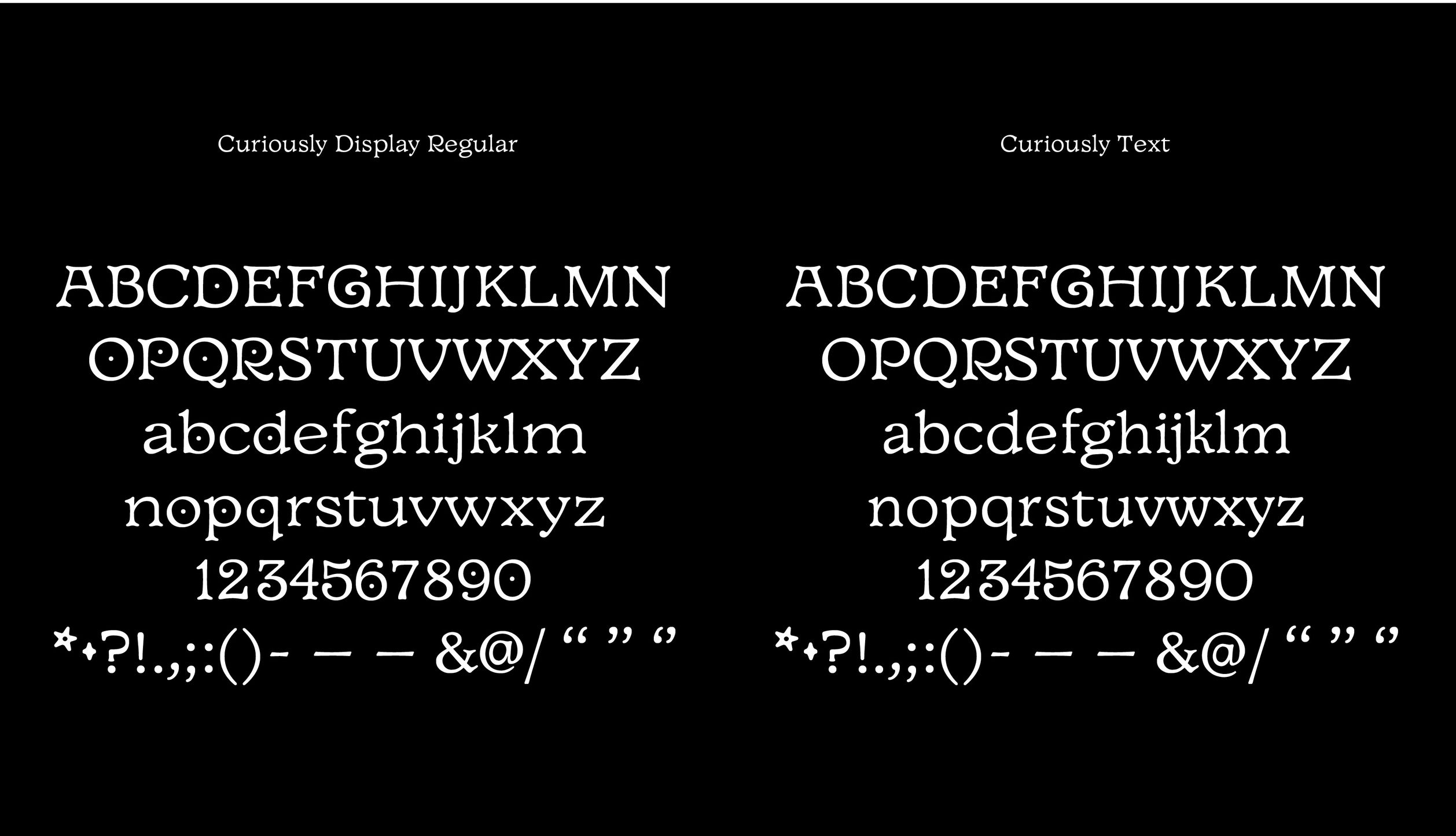
Martha Sue Coursey
Illustrator, designer, artist and art director in San Francisco. Graduate of CCA (with a BFA) and of Type West in San Francisco, class of 2020. Her graduation typeface there was called Curiously. She explains: Curiously is fueled by a fascination for 15th century Roman letterforms and beautiful children's books. It comes in Regular, Black and Text and Ornaments. The family works well for logos, branding, book covers, and editorials. Perfect for artisan brands or handmade goods. |